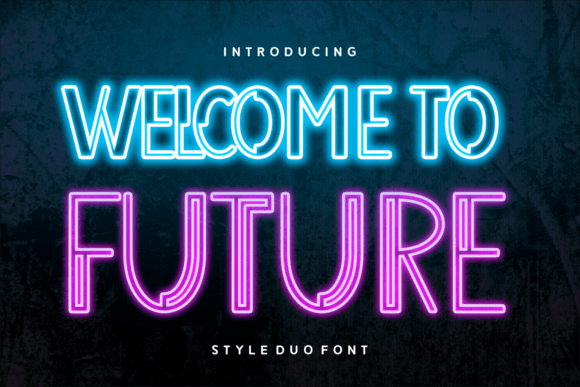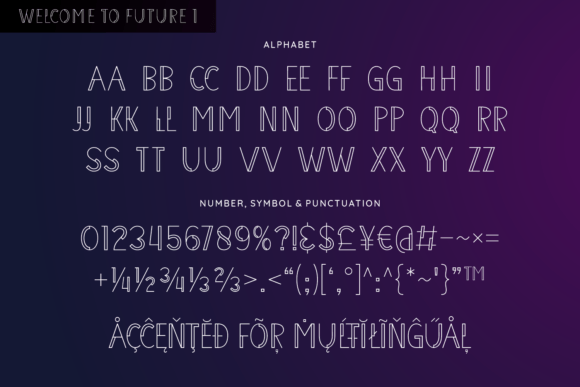
Welcome to Future Font
Welcome To Future is a cool and unique display font. Contemporary and fresh, it is perfect for any design you wish to create. Add it to your creative projects and make them outstanding!